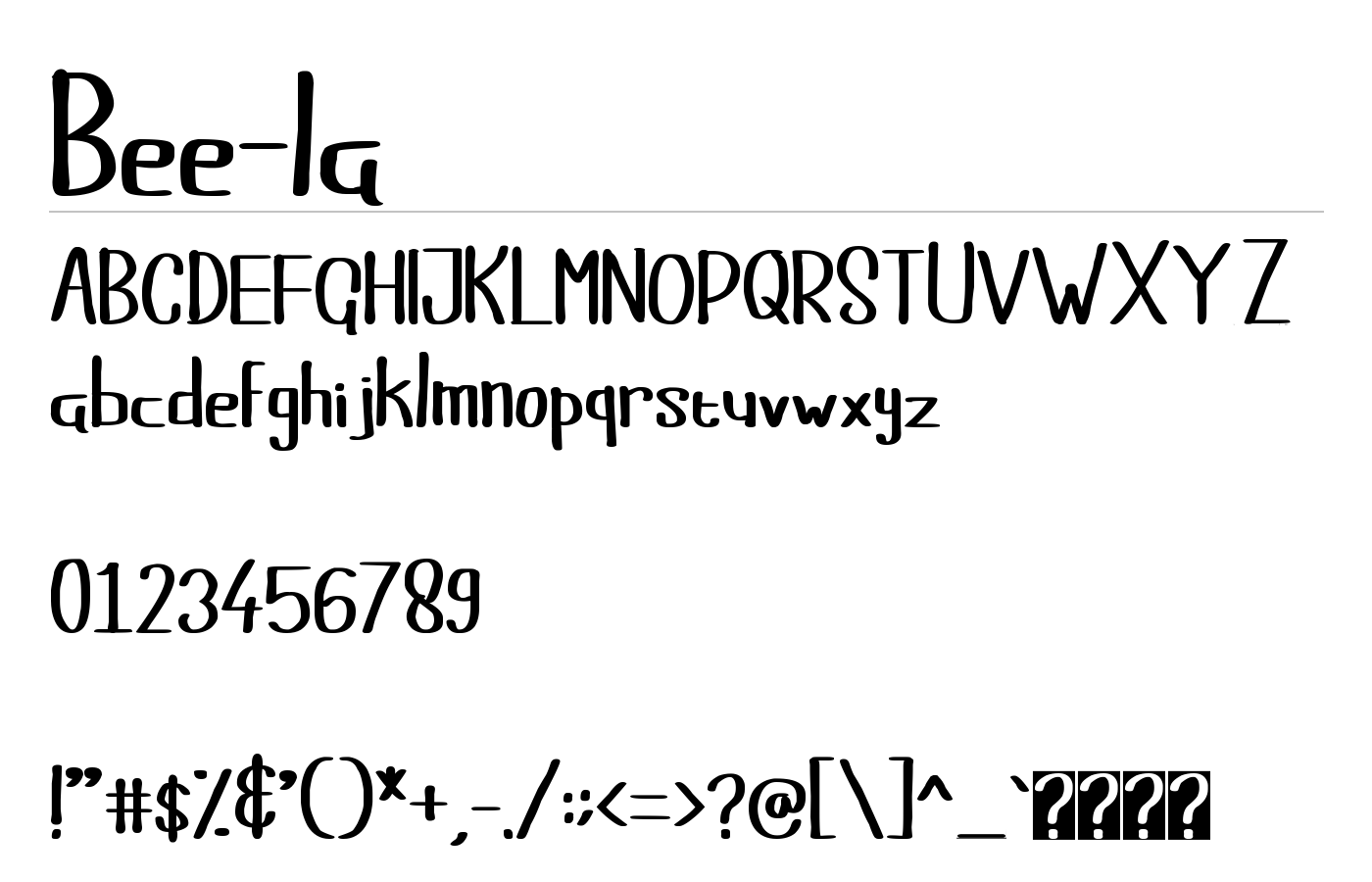
Bee-la is a playful, narrow sans serif font with a hand-drawn feel, featuring tall, slightly irregular letterforms and a casual, friendly style. Its medium stroke contrast and quirky details give it a unique, approachable personality, making it ideal for informal branding, children’s books, and creative projects that want to convey warmth and charm. This font works well in logos, headlines, and packaging where a personal, fun touch is desired.
Bee-la Font
About Bee-la Font